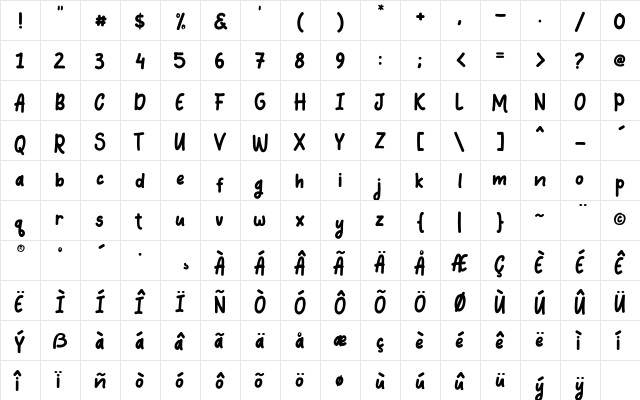
Coquin Regular Font Preview
Coquin Regular
Coquin Regular Font Details
| Foundry | Suzuran |
| Designer | Suzuran |
Design Context for Coquin Typeface
Coquin is a composed and adaptable typeface that performs quietly and consistently across a wide range of design contexts.